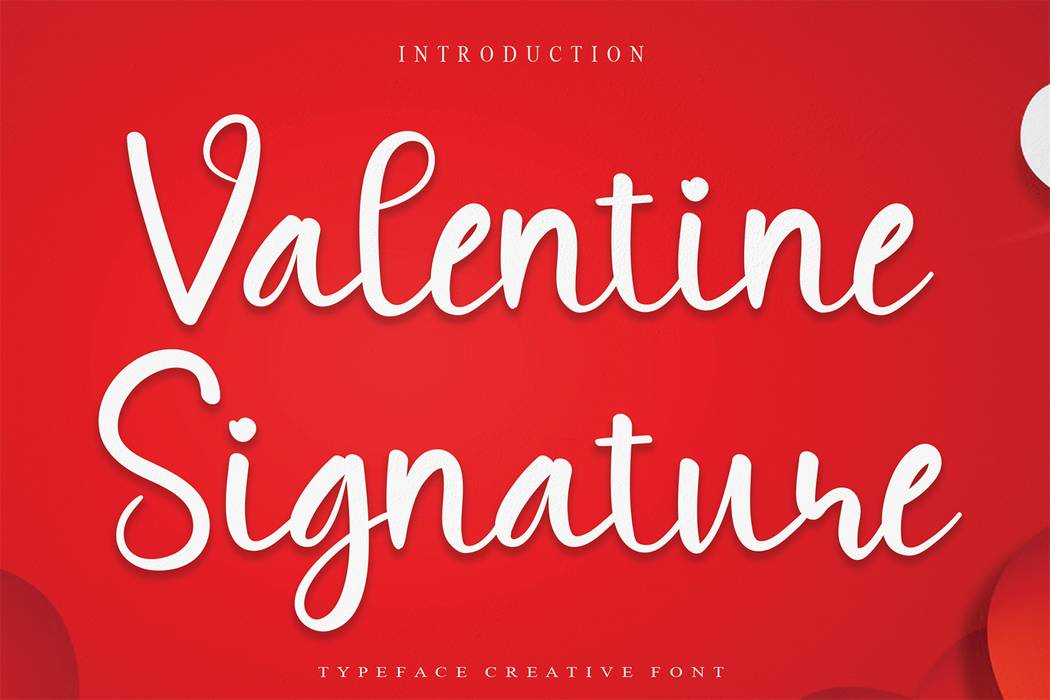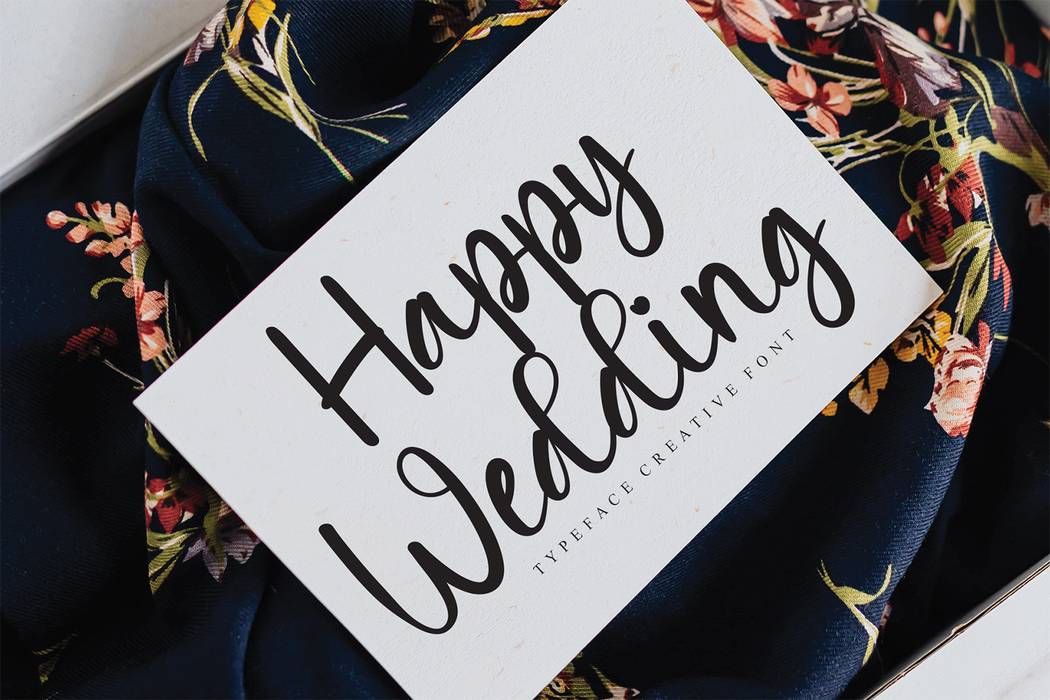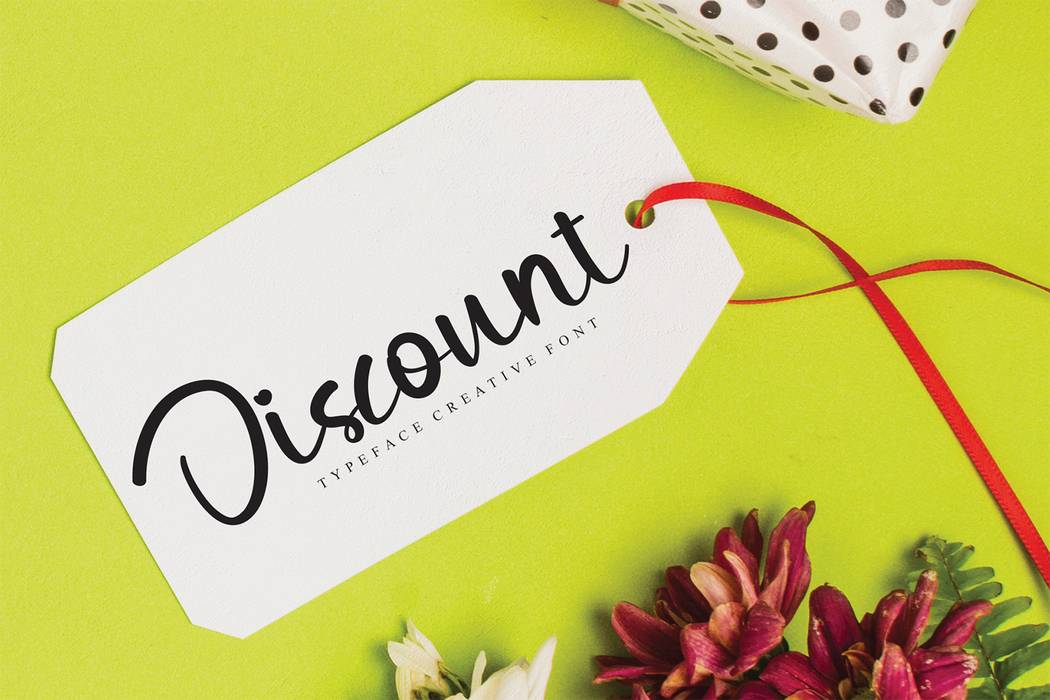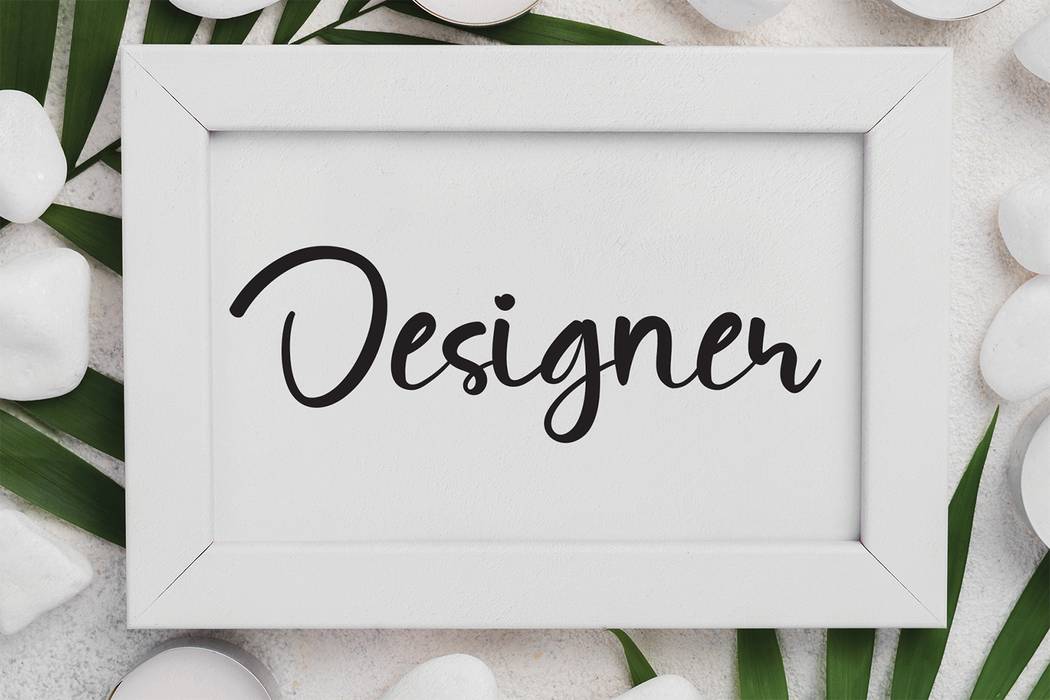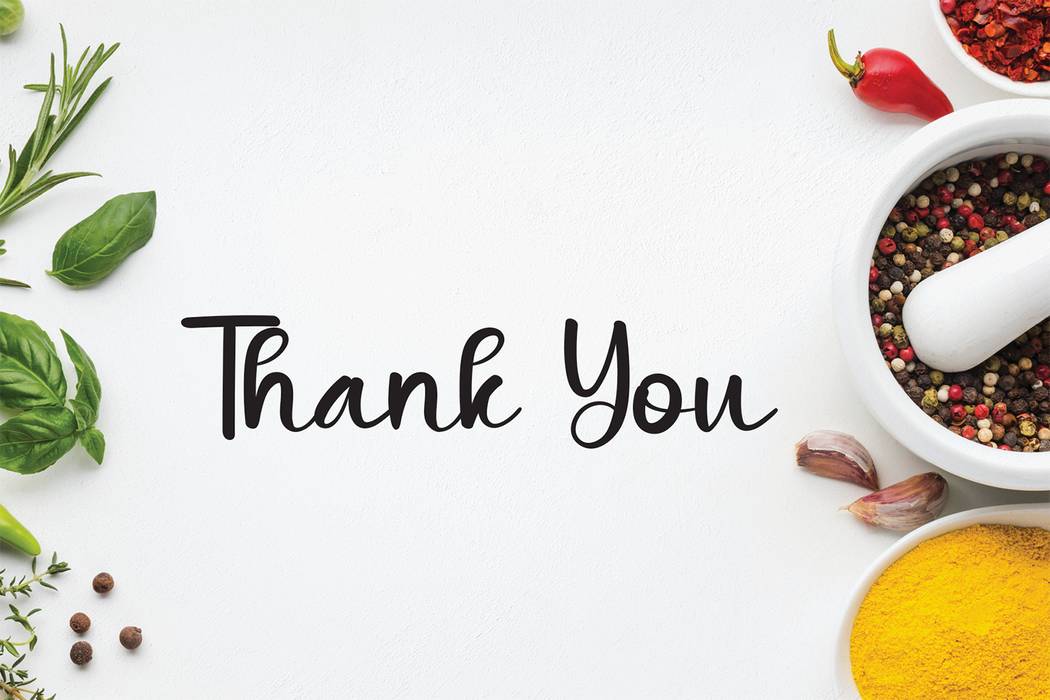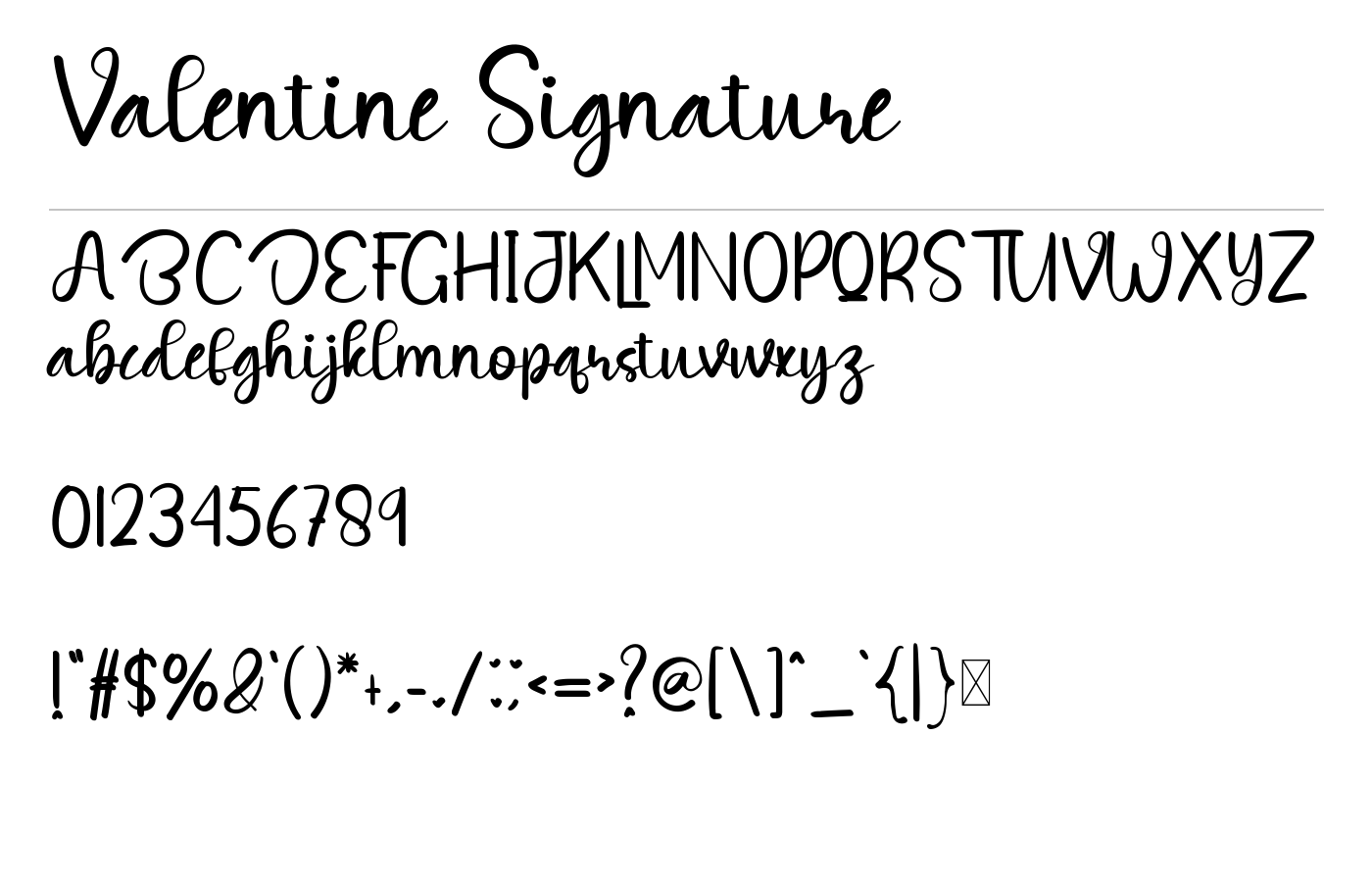
Valentine Signature Font is a charming handwritten script with a playful yet elegant feel, featuring smooth, flowing strokes and unique, quirky letterforms that give it a personal, signature-like quality. It works beautifully for branding, invitations, and creative projects that want to convey warmth and a friendly, approachable style. This font shines in logos and headlines where a casual but refined touch is desired.
Valentine Signature Font
About Valentine Signature Font
| Font family | Valentine Signature Font |